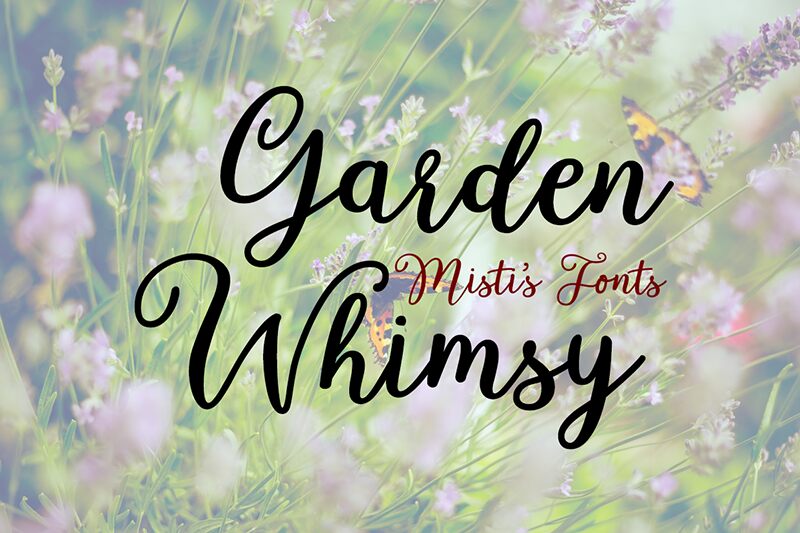
Garden Whimsy font by Misti's Fonts applies a sense of wonder to each character design. Let each letter flow smoothly due to the handwriting that has a modern and exquisite style and a neat presentation. Switch things up by designing an organic project with this free font, or creating something dashing by mixing this script font with your favorite fonts!
Designed in light yet well-defined lines, Garden Whimsy can be used for headers and sub-headers for menus, in addition to branding and packaging projects for cosmetics or flower stores, etc. Within the typography section, a wide selection of special characters is available and they can be mixed and matched to present artistic logotypes and signs, or to bring a charming look to invitation/thank you cards for celebratory occasions.
Garden Whimsy is a playful and bouncy cursive font brimming with charm and character. Perfect for invitations, logos, and various creative projects, its flowing letters introduce a whimsical touch to any design. Let your words bloom beautifully with this free font.